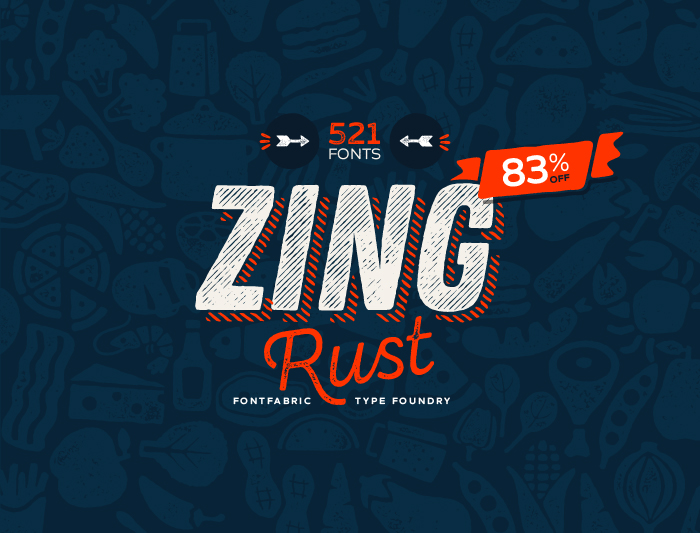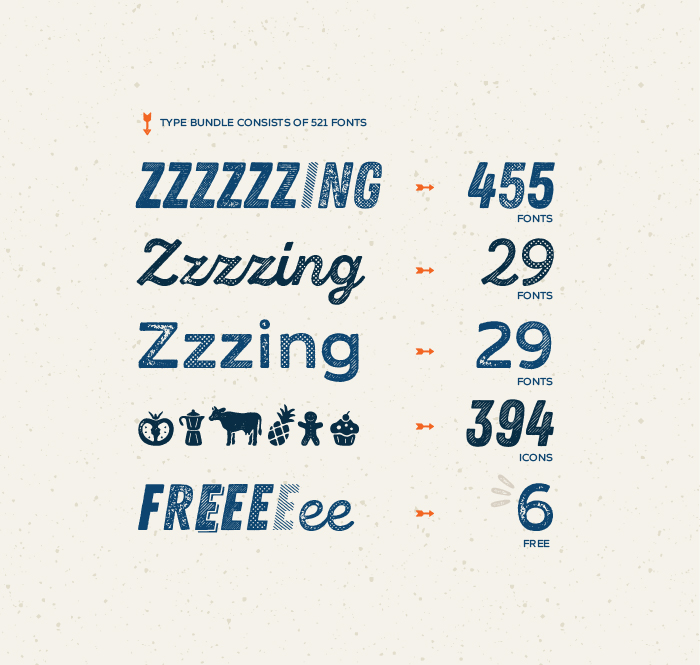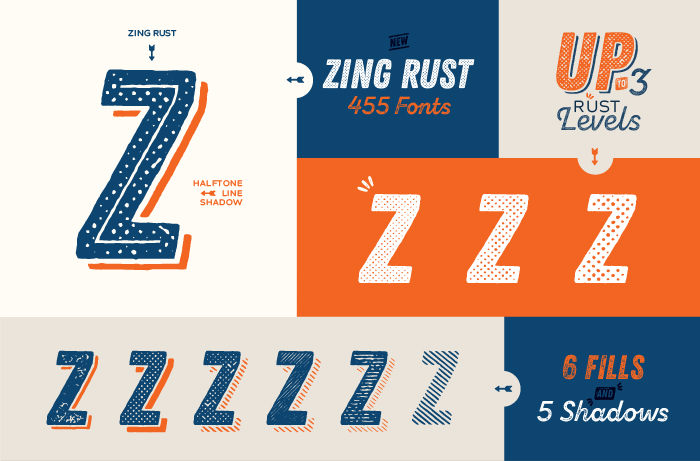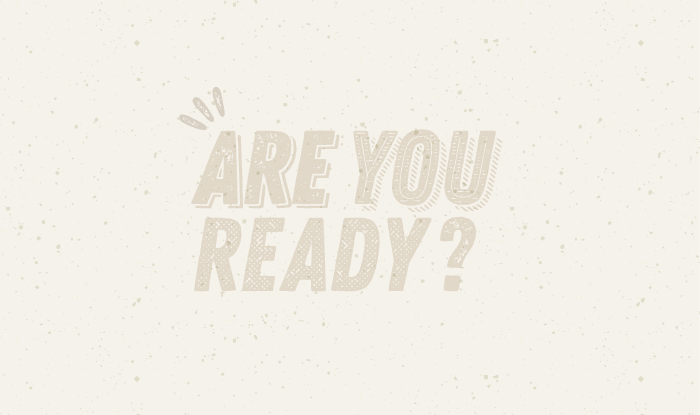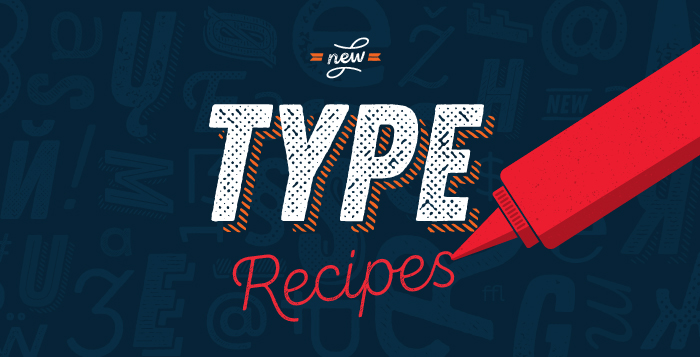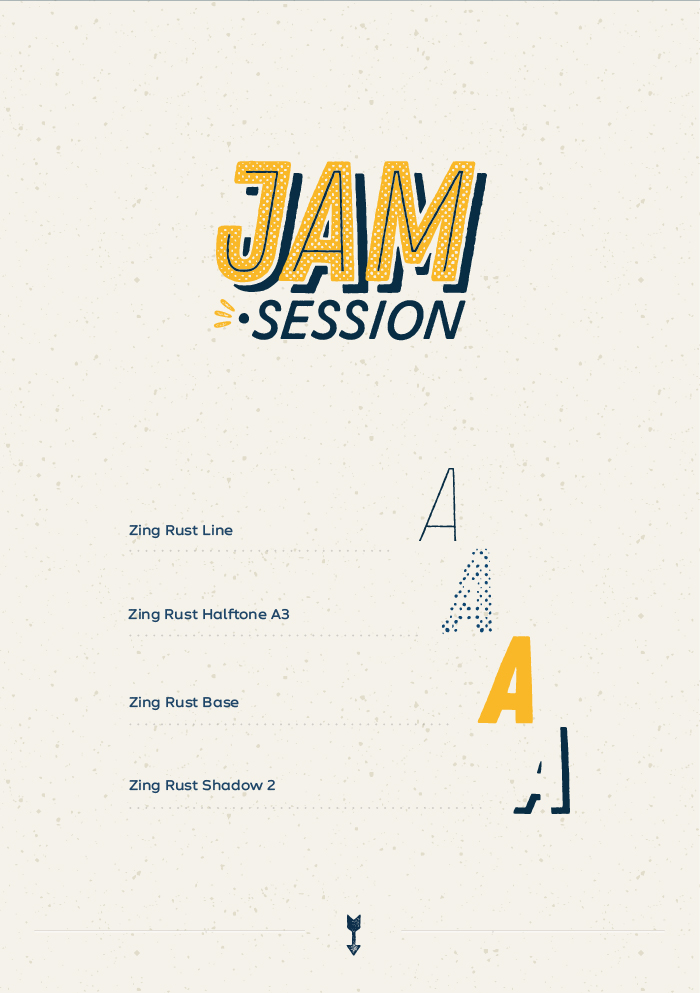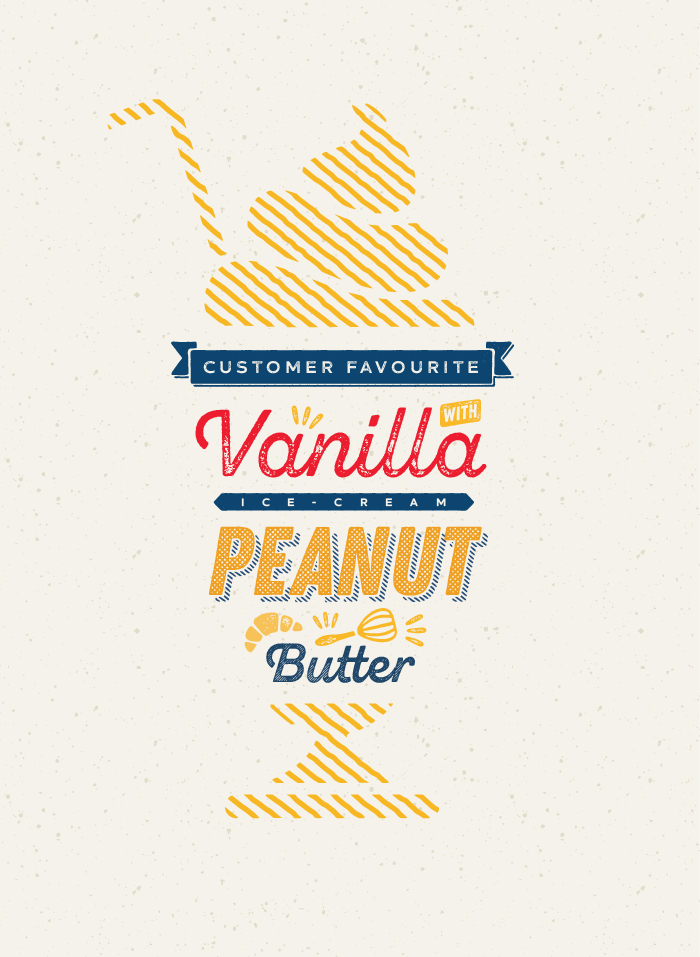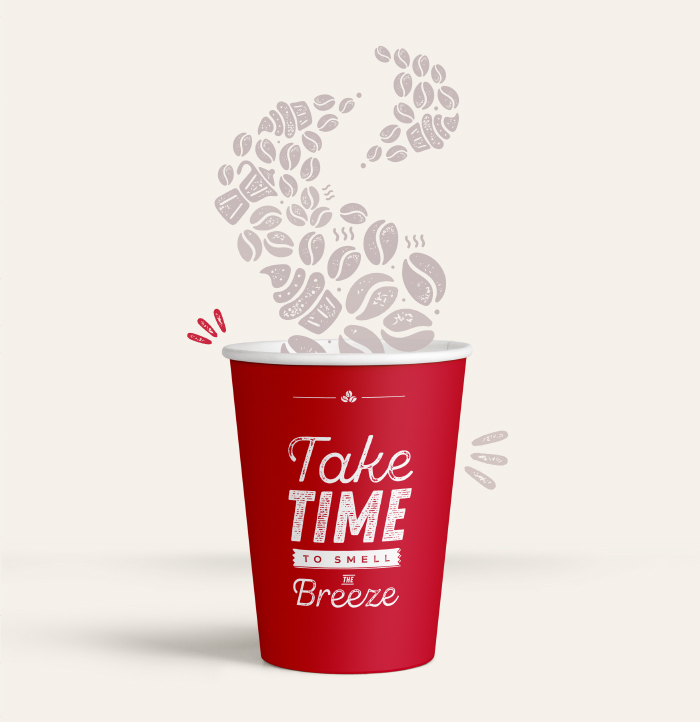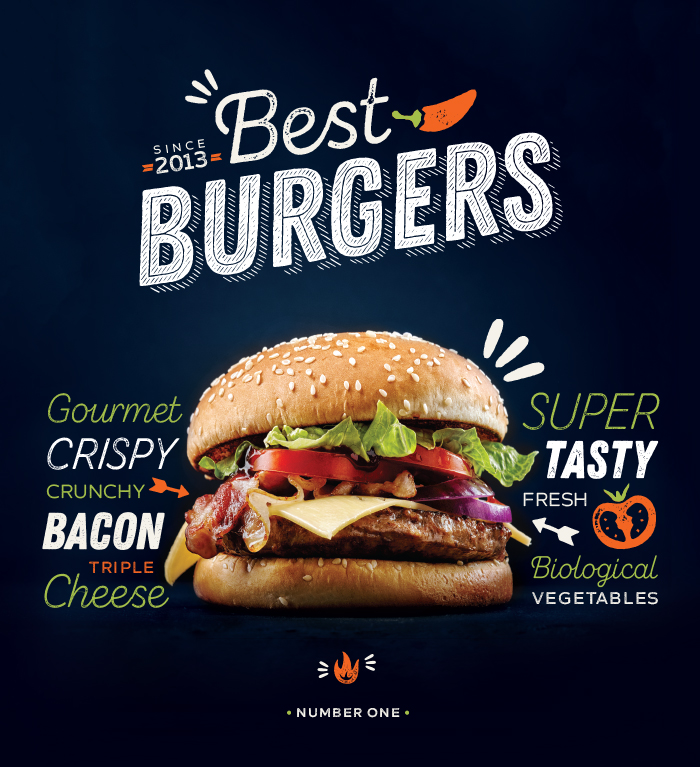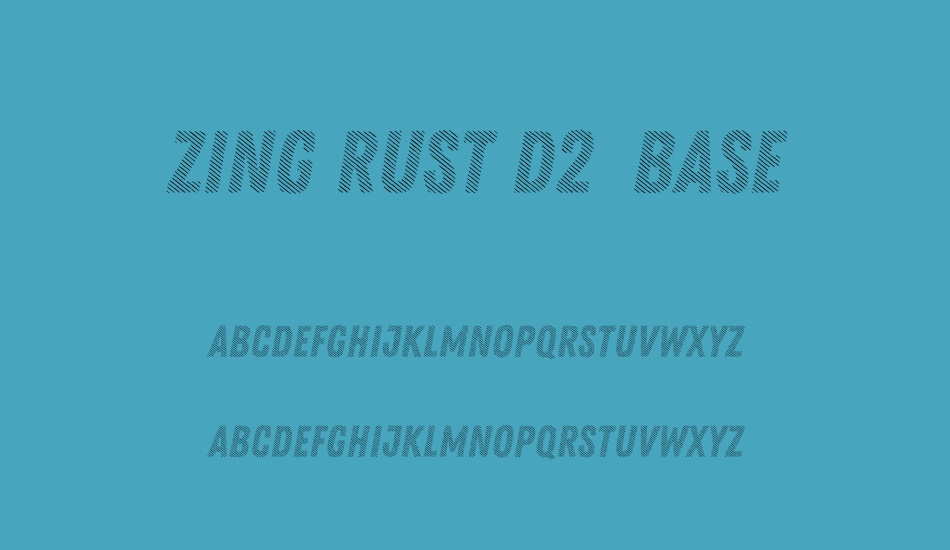
Zing Rust
Zing Rust™ is an extremely huge package of outstandingly handmade 521 fonts!
As its name refers Zing Rust stands for the vital freshness of your ideas and bold designs.
It includes the 4 (four) major sub-families Zing Rust, Zing Script Rust, Zing Sans Rust and Zing Goodies Rust, with the leading star Zing Rust and special mention of Zing Script Rust having fully functional OpenType features and Contextual Alternates.
The variety of carefully handcrafted styles gives you the opportunity to combine a multitude of sans serifs, scripts, icons, and ribbons with shadows, rust, halftone dots, lines and so on. Each with many weights, giving you the ultimate tools of your imagination.
We call it ZING THE AMAZING!
Designed by the Fontfabric team.